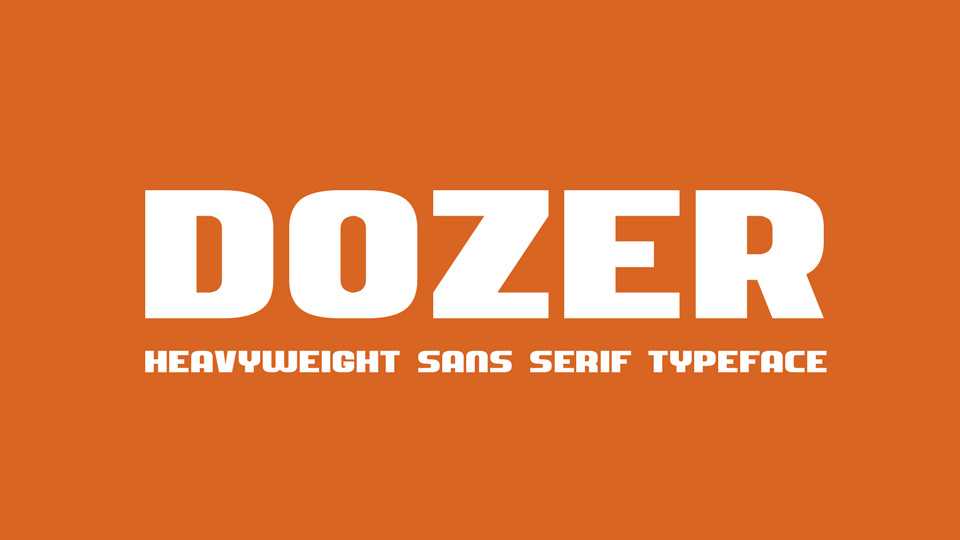
Download Dozer typeface, a heavyweight sans serif display font family in Strong and Smooth styles. Dozer perfectly fits for loud headlines, posters, banners, logos and branding and other display designs.
Designer: Aaron Amar